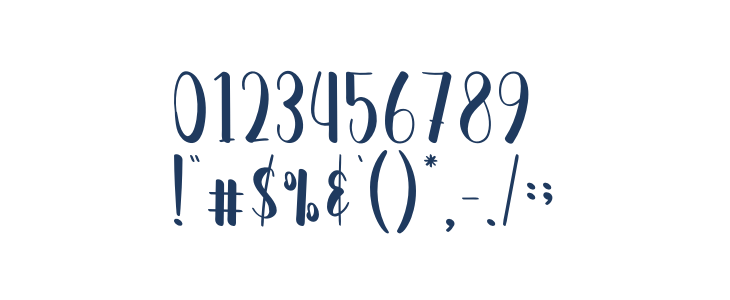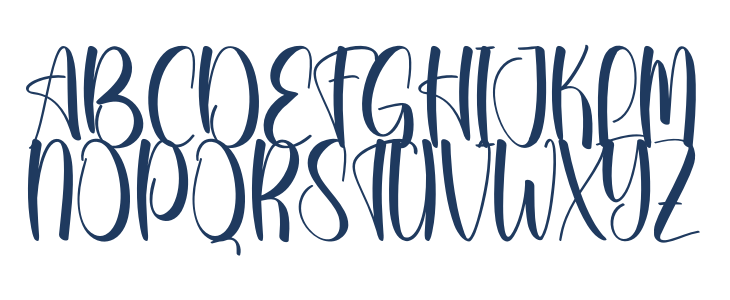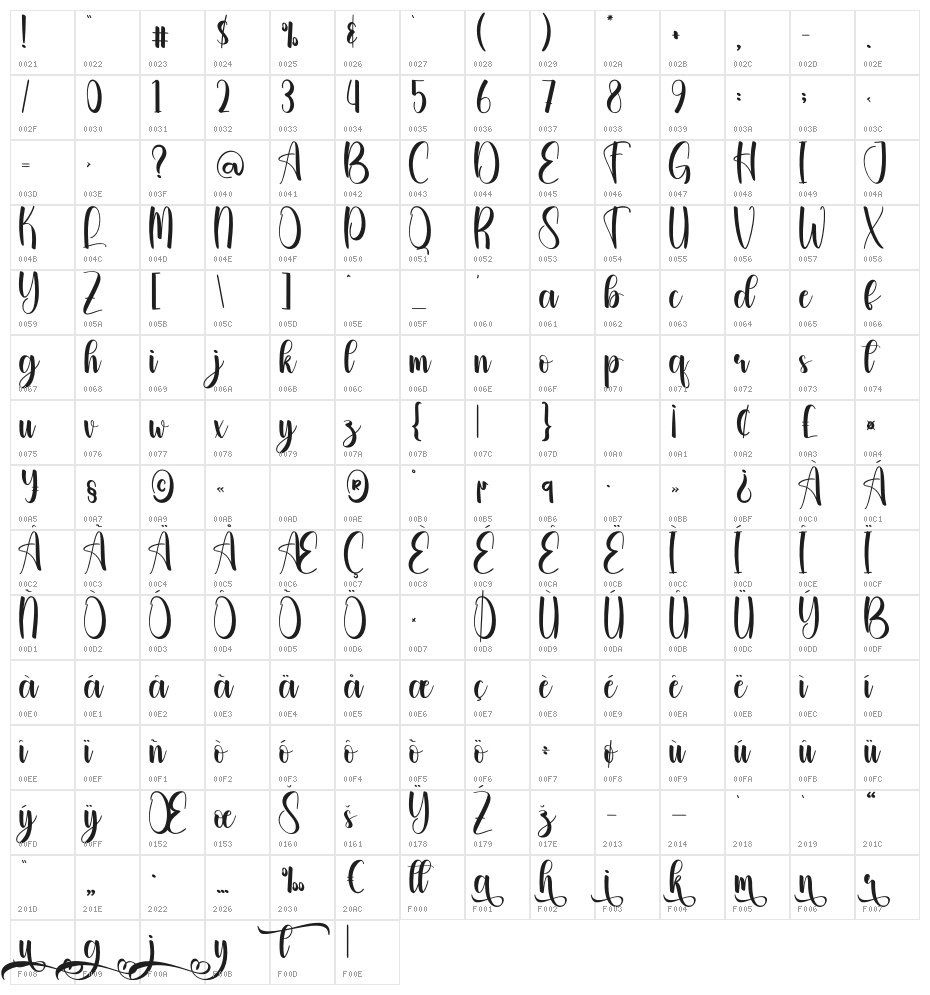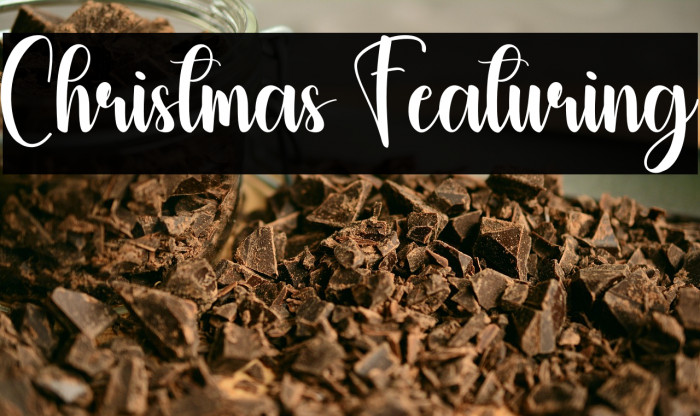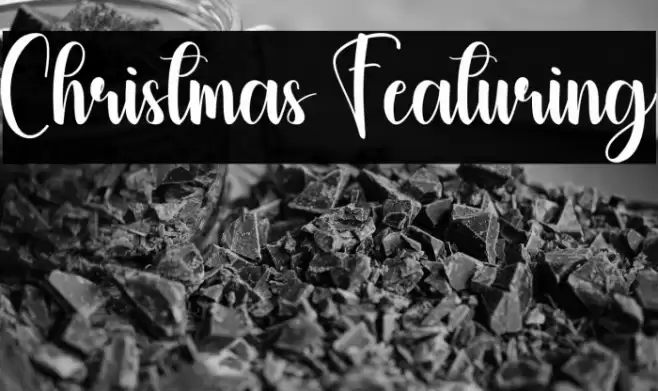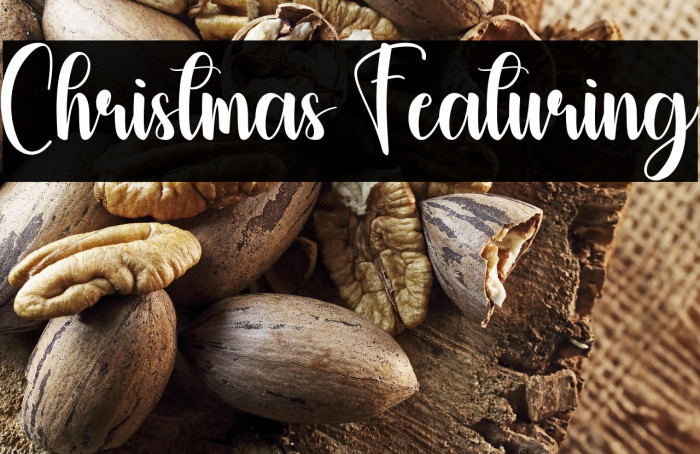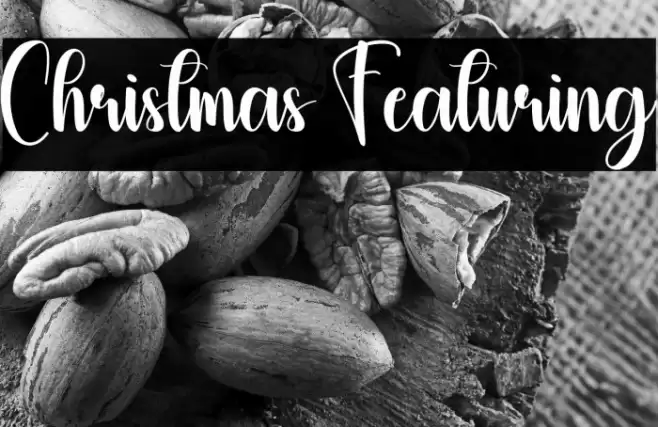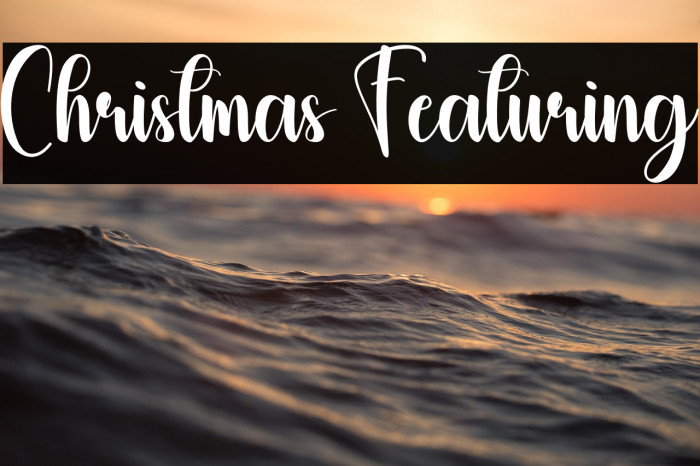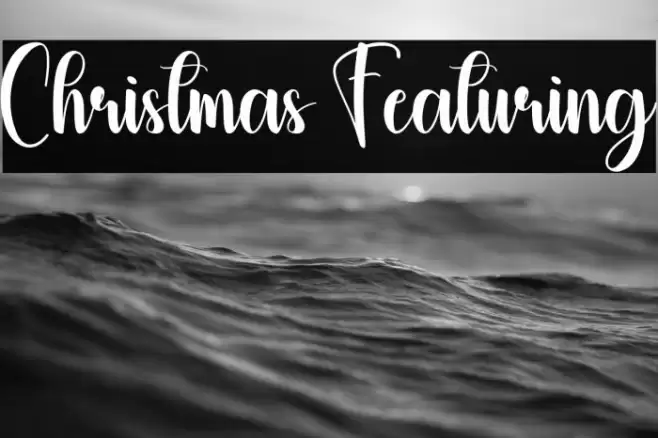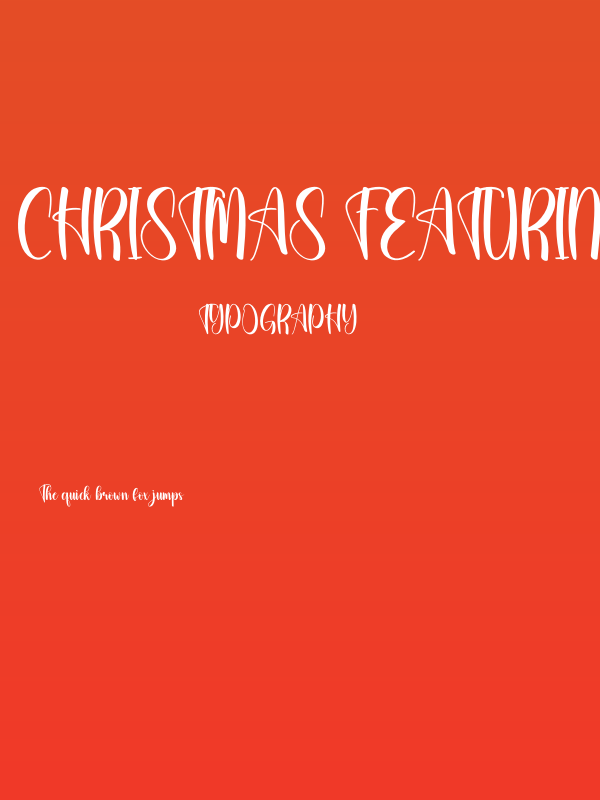
Christmas Featuring Font
Christmas Featuring Description
A playful, modern script font with a hand-lettered appearance, featuring tall, narrow characters, high contrast between thick and thin strokes, and expressive, flowing curves. The uppercase and lowercase letters are both decorative, with some variation in stroke width and a casual, festive feel.
| Overall Style | Decorative, Modern, Festive |
| Use Case | Headlines, Logos, Invitations, Greeting cards |
| Proposed Projects | Holiday cards, invitations, branding, social media graphics, event posters, festive packaging. |